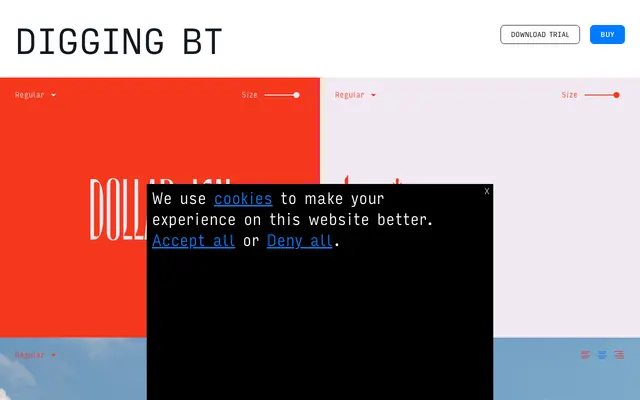
Digging BT specimen from Bastarda
A display typeface from Bastarda rooted in Hip Hop culture, built for expressive headline and graphic use.
Inspired by the origins of Hip Hop in the South Bronx, the typeface carries a street-culture sensibility suited to album art, editorial and campaign work in that vernacular. A single Regular weight covers an extensive Latin Extended character set, including support for Central and Eastern European languages. The sample text leans heavily into 1990s rap references, placing the design firmly within a specific cultural moment.
A display typeface with strong Hip Hop cultural references, designed for expressive headline use rather than body text. Its character set and sample text point to street culture and graffiti-adjacent aesthetics.